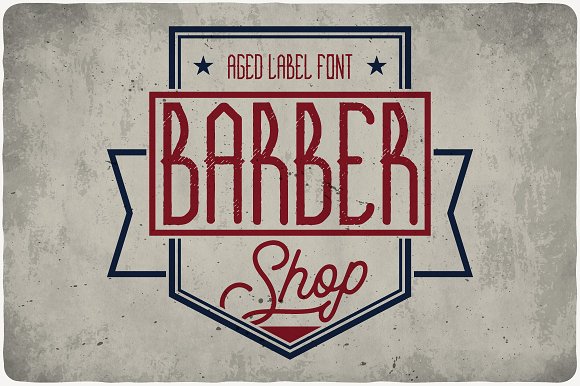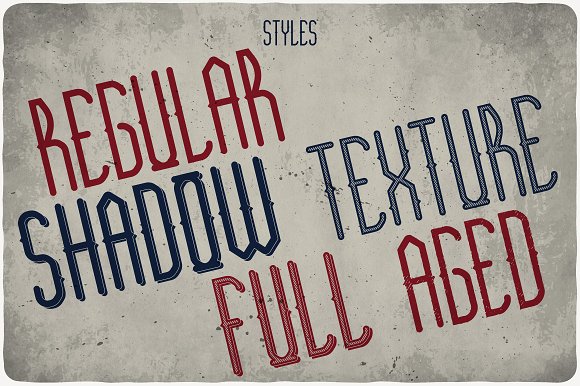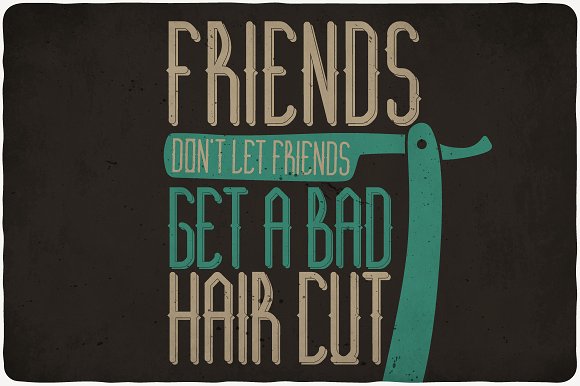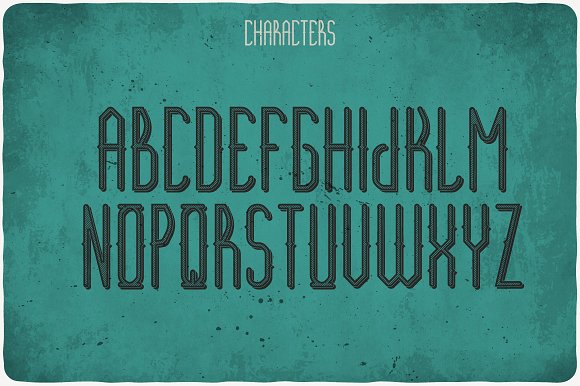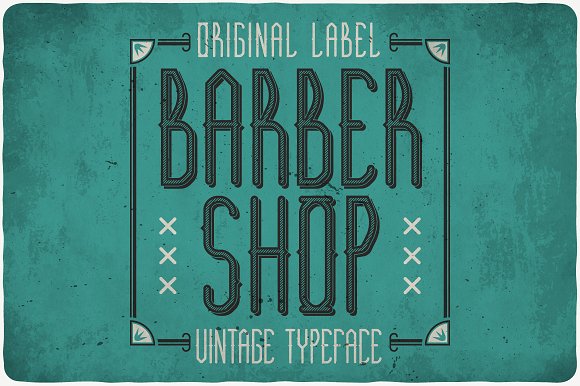
Barber Shop Typeface
Introducing a original look label typeface named “Barber Shop”. It’s made in strong and vintage label style. The font will look good on any of your designs.